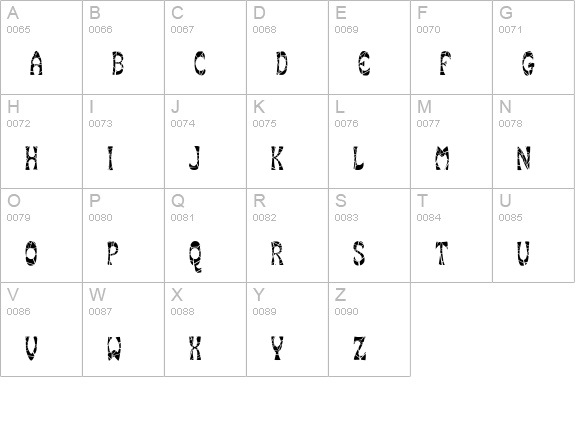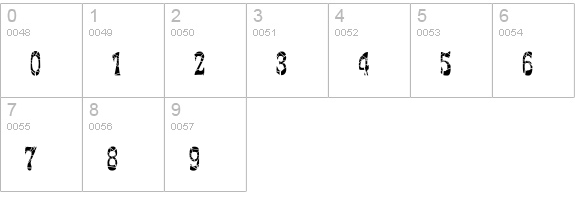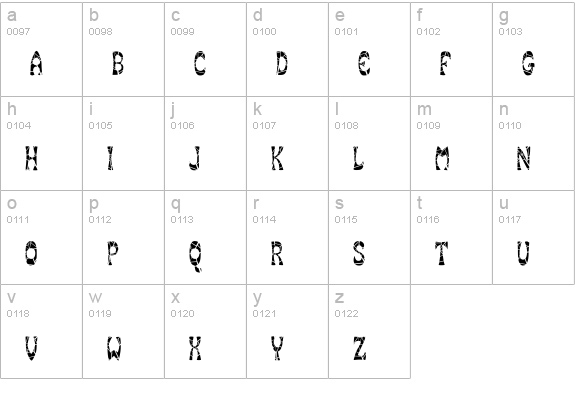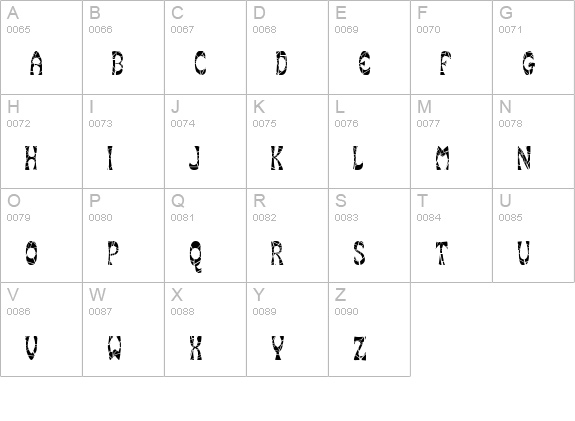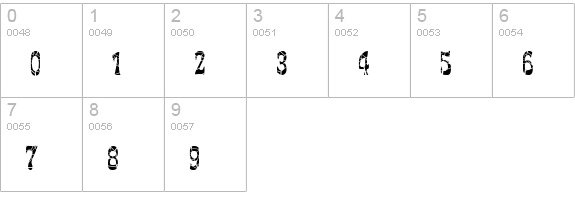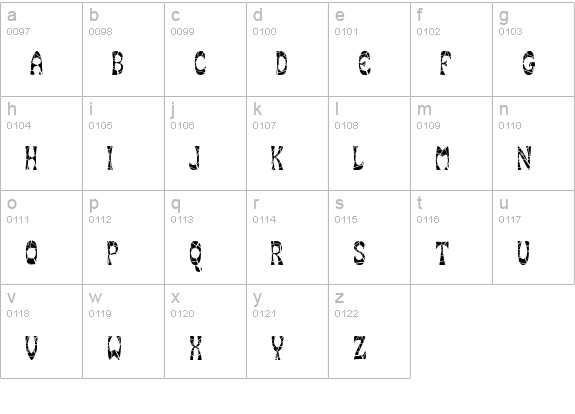
SmokeHouseShatter Font Details
Introducing SmokeHouseShatter, a captivating and bold font that will bring your designs to life with its unique and edgy appeal. This one-of-a-kind typeface is perfect for adding a touch of intrigue and excitement to your projects. SmokeHouseShatter features a distinctive shattered effect, giving each letter a rugged and smoky appearance. The jagged edges and broken lines create a sense of raw energy, making this font ideal for designs that demand attention and make a statement. Whether you're working on a poster, album cover, logo, or any other creative endeavor, SmokeHouseShatter is sure to leave a lasting impression. Its versatility allows it to complement a wide range of themes and styles, from rock and grunge to urban and industrial. What's more, SmokeHouseShatter is freely available to download at FontsMarket.com. This means you can easily access this remarkable font and incorporate it into your projects without any hassle. Say goodbye to expensive font purchases and hello to the freedom of creativity! So go ahead and unleash the power of SmokeHouseShatter in your designs. Let its captivating shattered effect capture the essence of your message and create a visual impact that your audience won't be able to resist. Download SmokeHouseShatter today and elevate your designs to a whole new level of awesomeness.